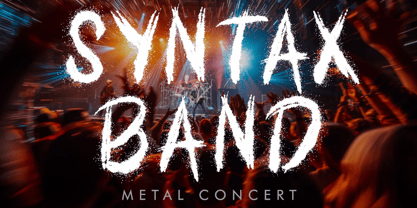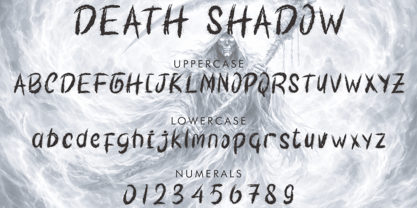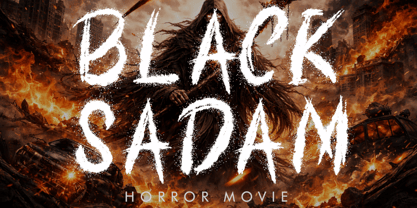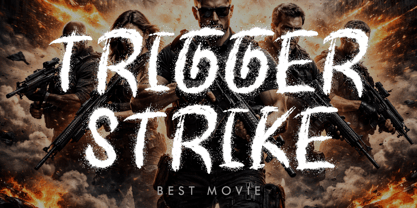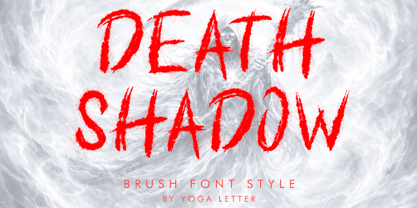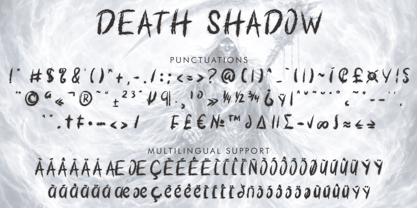
Death Shadow
by Yoga Letter
The Death Shadow Font Family was designed by Isroni Yoga Prasetya and published by Yoga Letter. Death Shadow contains 1 styles. More about this family
"Death Shadow" is an elegant and modern brush font. It features uppercase and lowercase letters, numerals, punctuation, and multilingual support. It's perfect for movie titles, horror movies, action movies, tattoos, stickers, banners, posters, metal concerts, logos, prints, branding, banners, Halloween, Valentine's Day, spring, summer, holidays, t-shirts, screen printing, and more.
Designers: Isroni Yoga Prasetya
Foundry: Yoga Letter